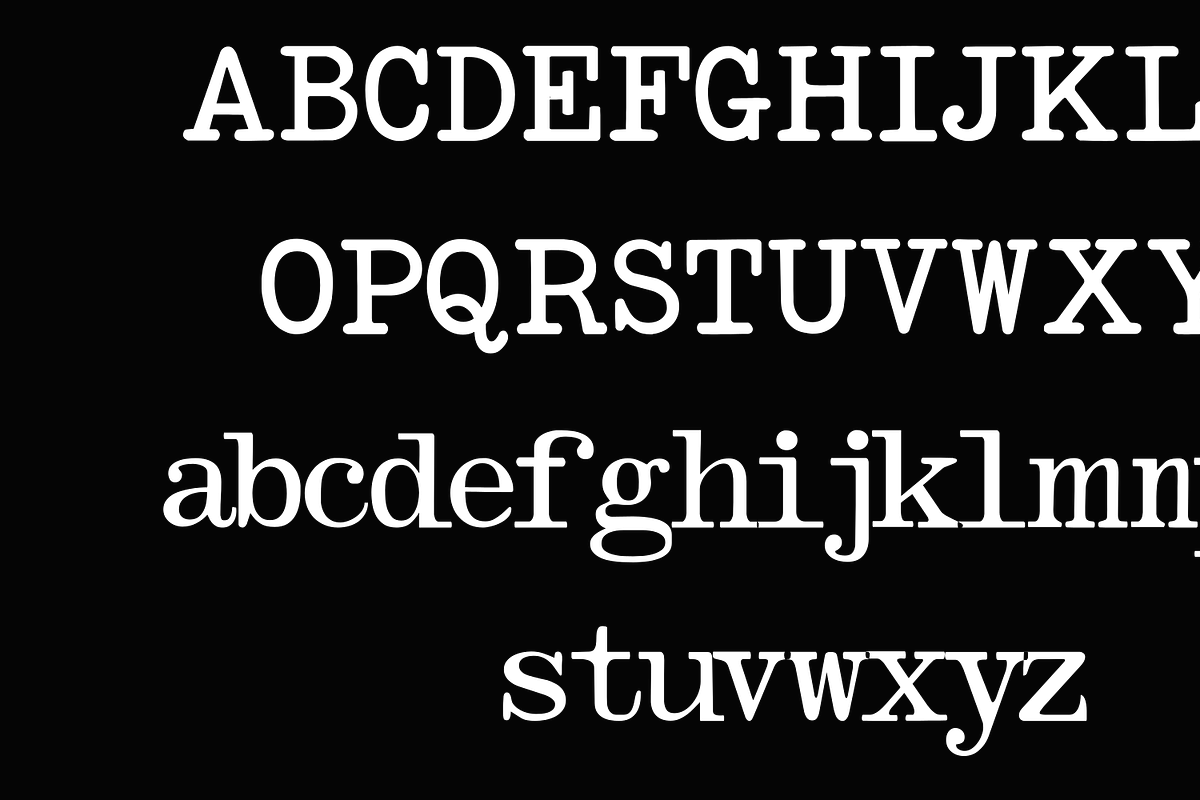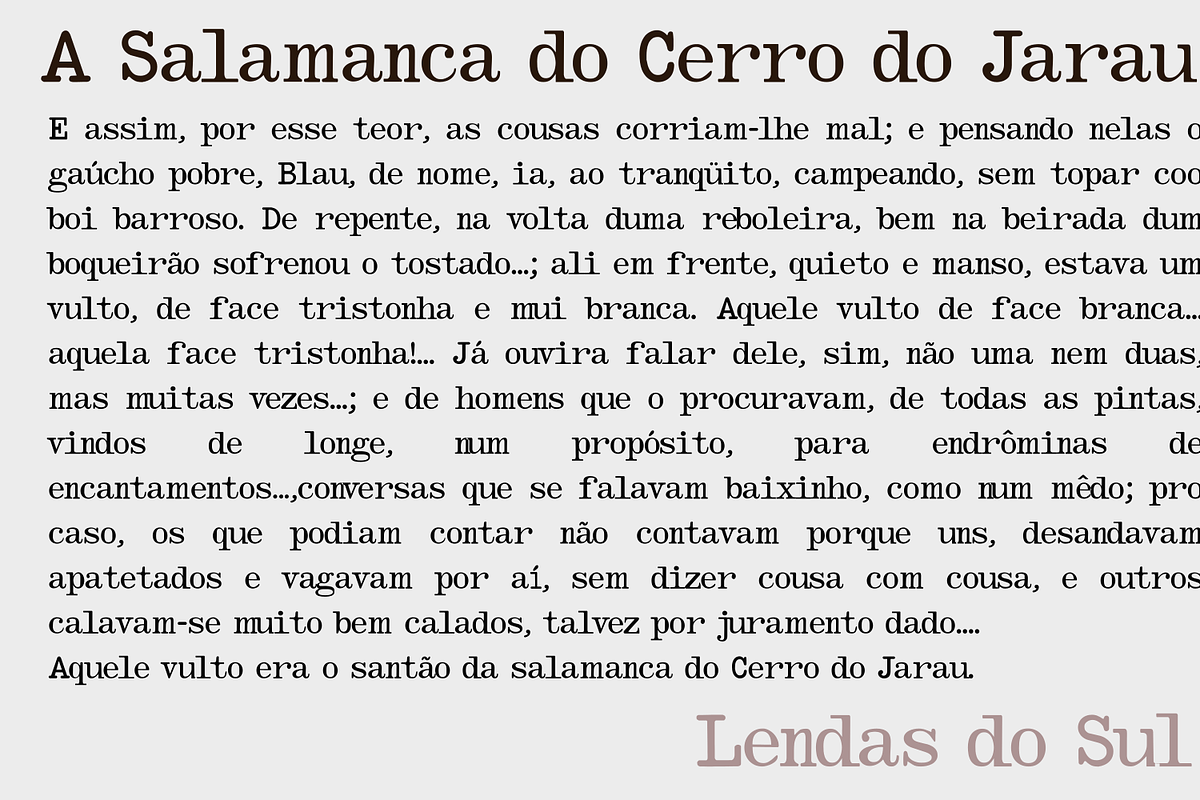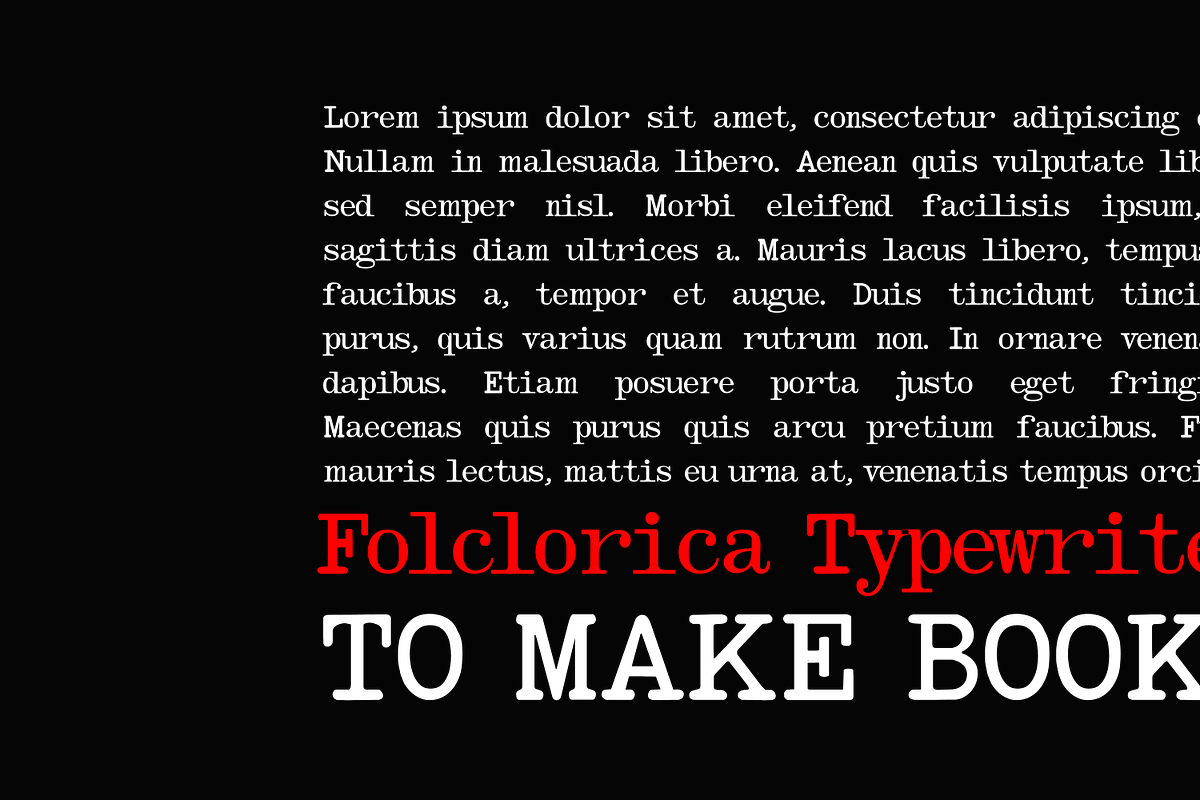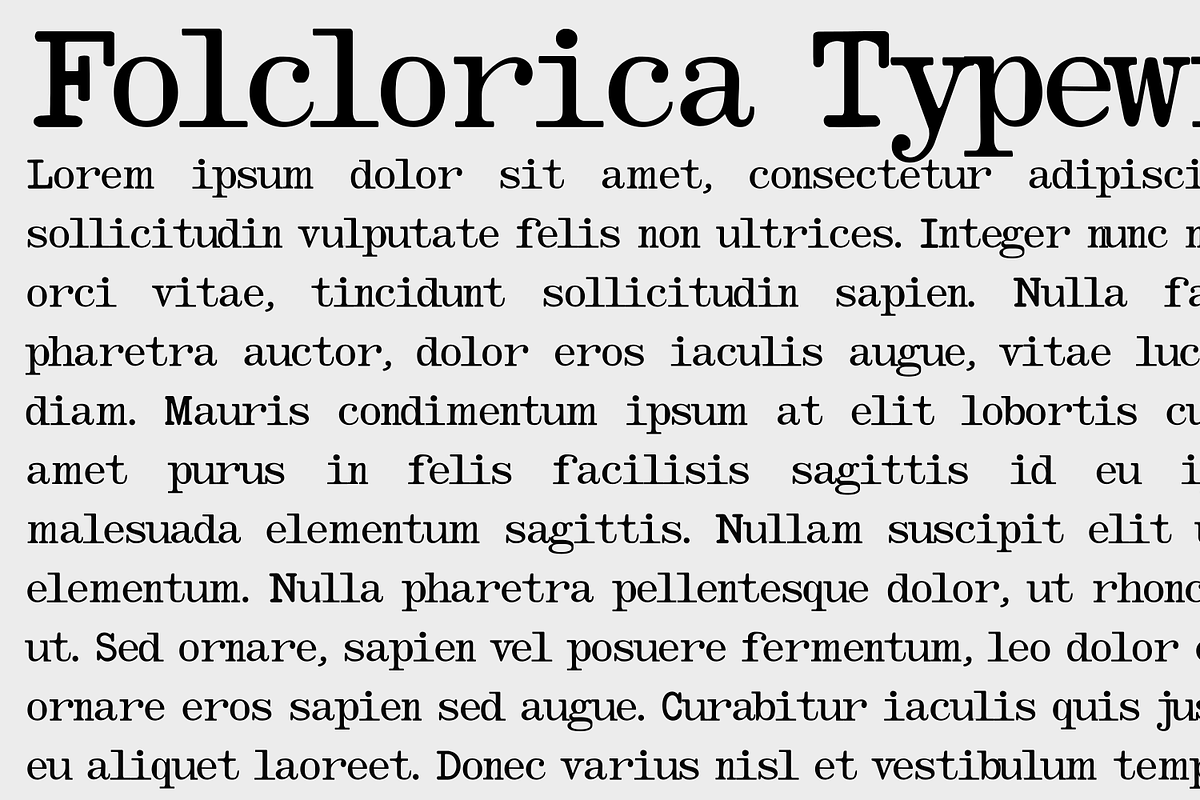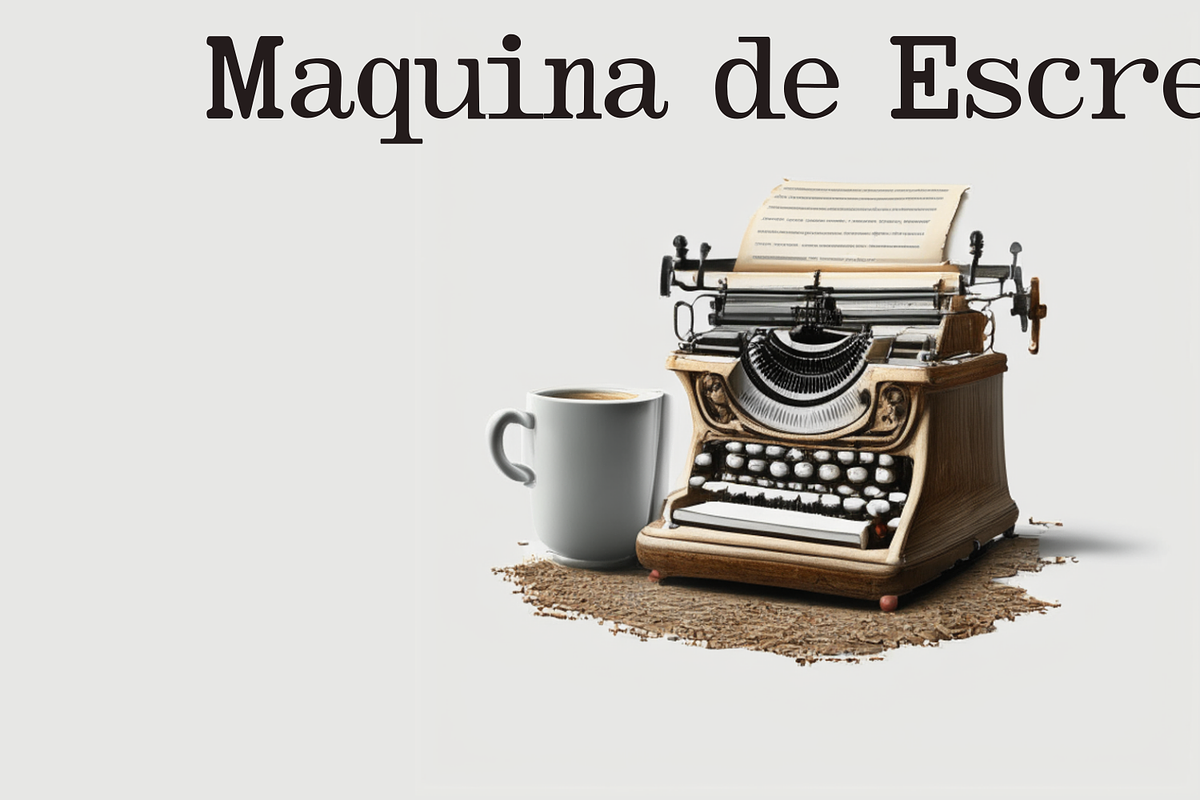
Folclorica Typewriter
The Folclorica Typewriter is a unique typewriter font design, great for mimicking the effect of typewriting older machines. Has an erased and much-inked style, good for exquisite designs.